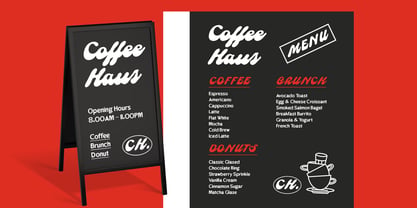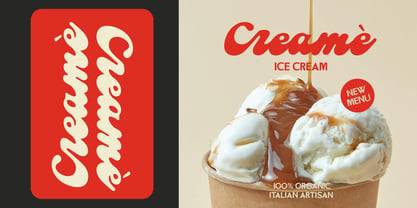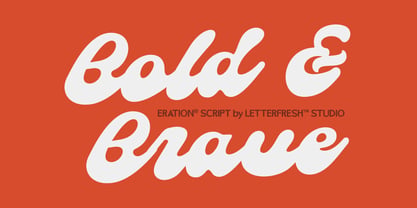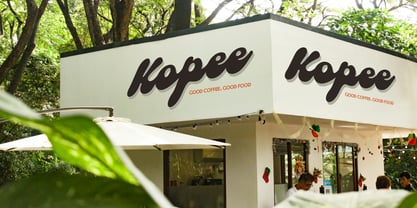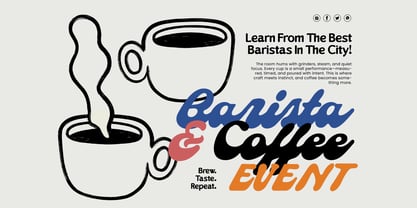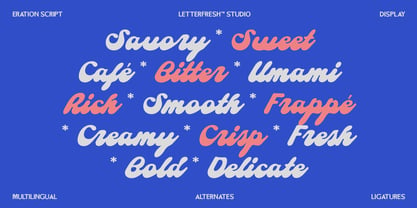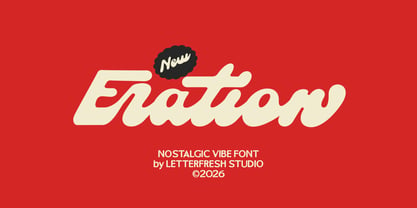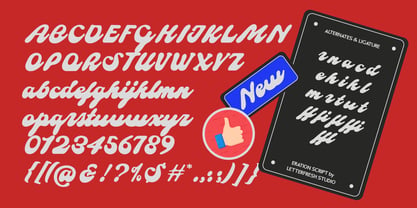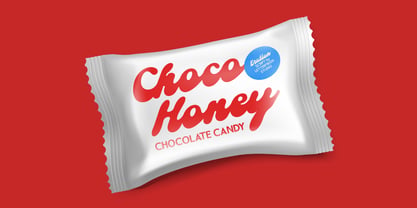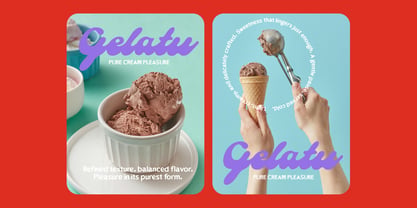
Eration Script
by Letterfreshstudio
The Eration Script Font Family was designed by Rizki Andika and published by Letterfreshstudio. Eration Script contains 1 styles. More about this family
Meet Eration Script – where nostalgia meets bold expression. This slanted, hand-drawn typeface flows effortlessly from letter to letter, mimicking the smooth rhythm of vintage signage and classic brush lettering. Thick, inky strokes and a slightly blurred softness give it a warm, lived-in feel—like a favorite old poster or a handwritten note from the past. Perfect for branding, packaging, album covers, and retro-inspired designs, Eration Script brings personality and charm to every word. Ready to add some timeless flair to your projects? Get it today and let the flow begin.
Designers: Rizki Andika
Current Foundry: Letterfreshstudio